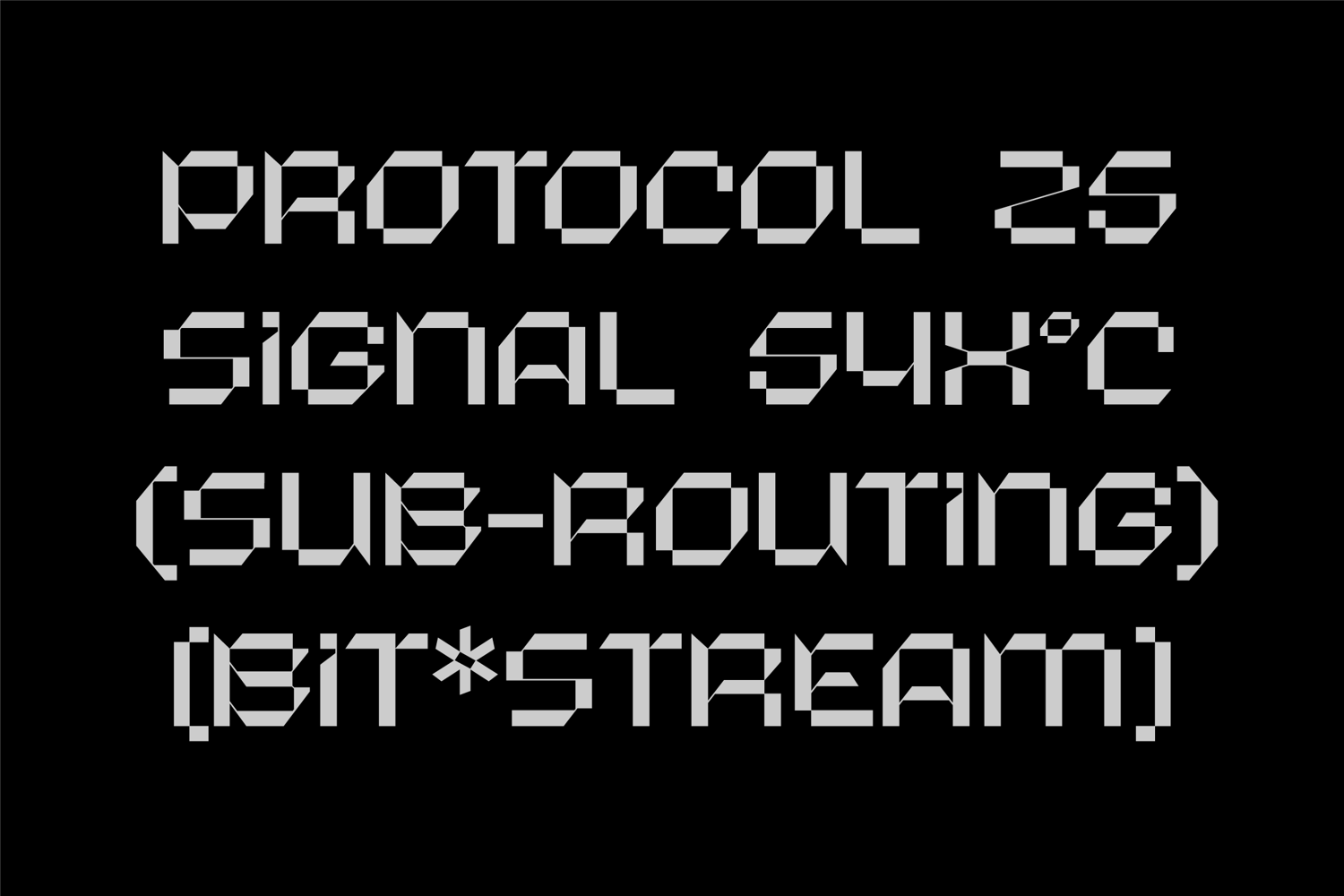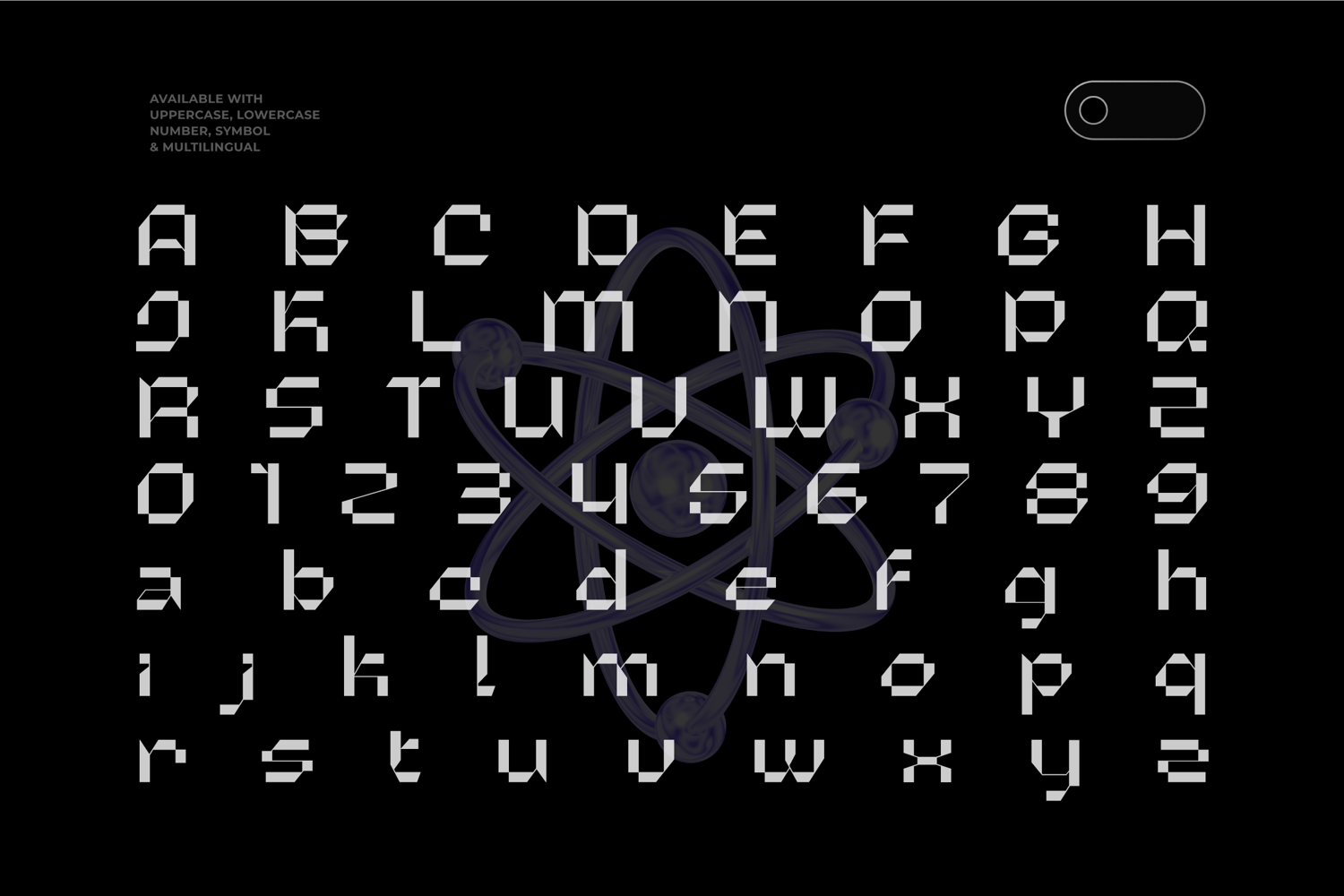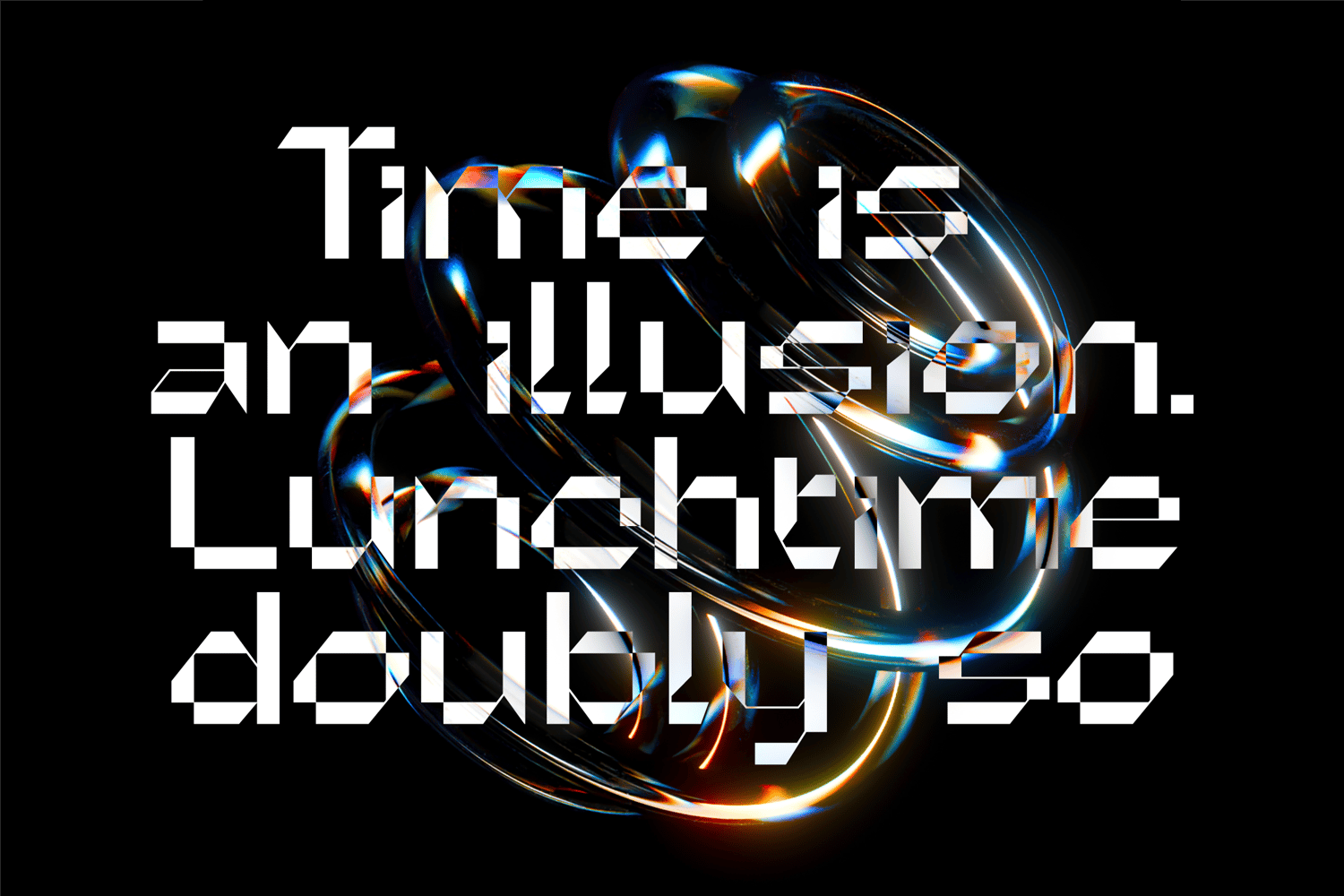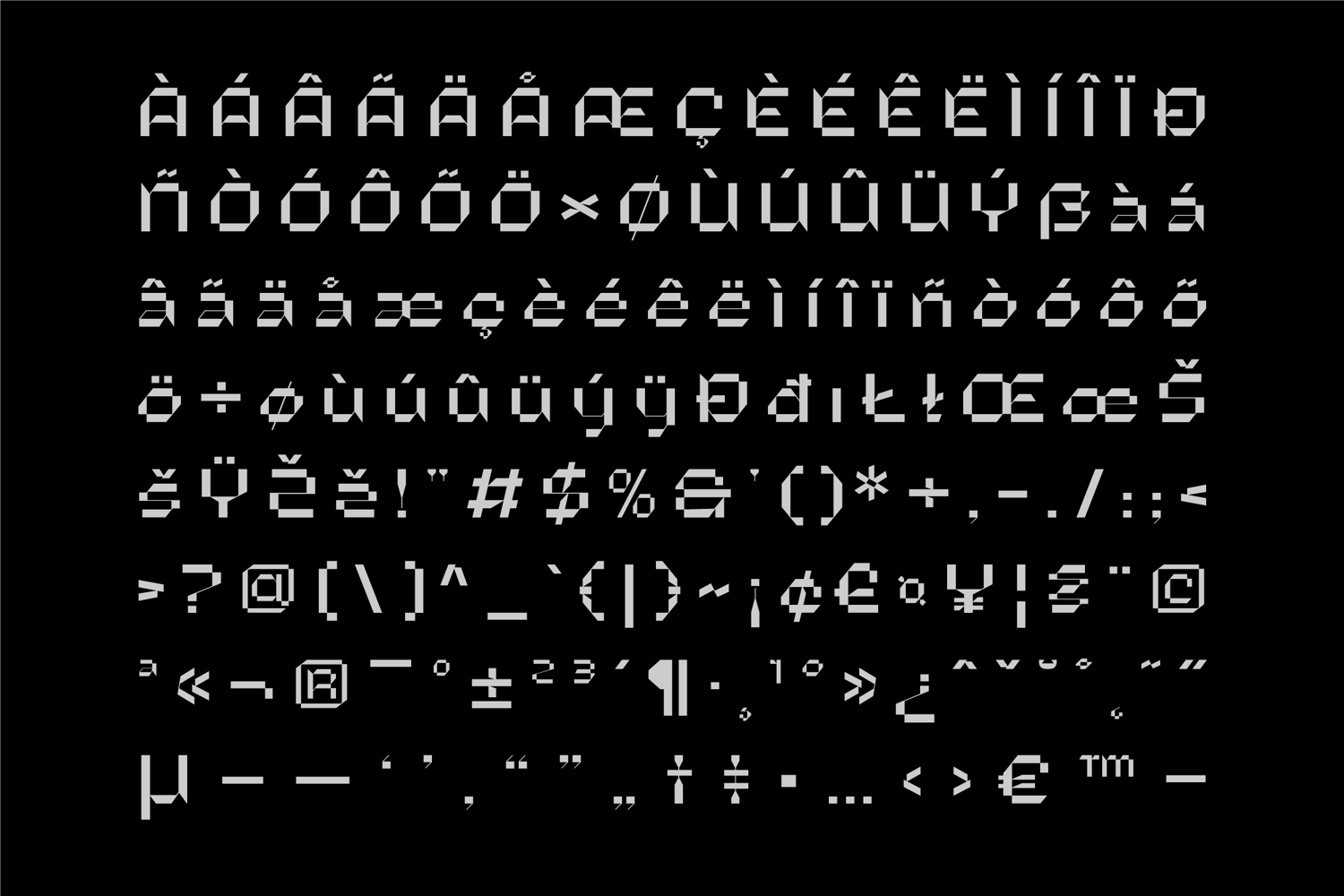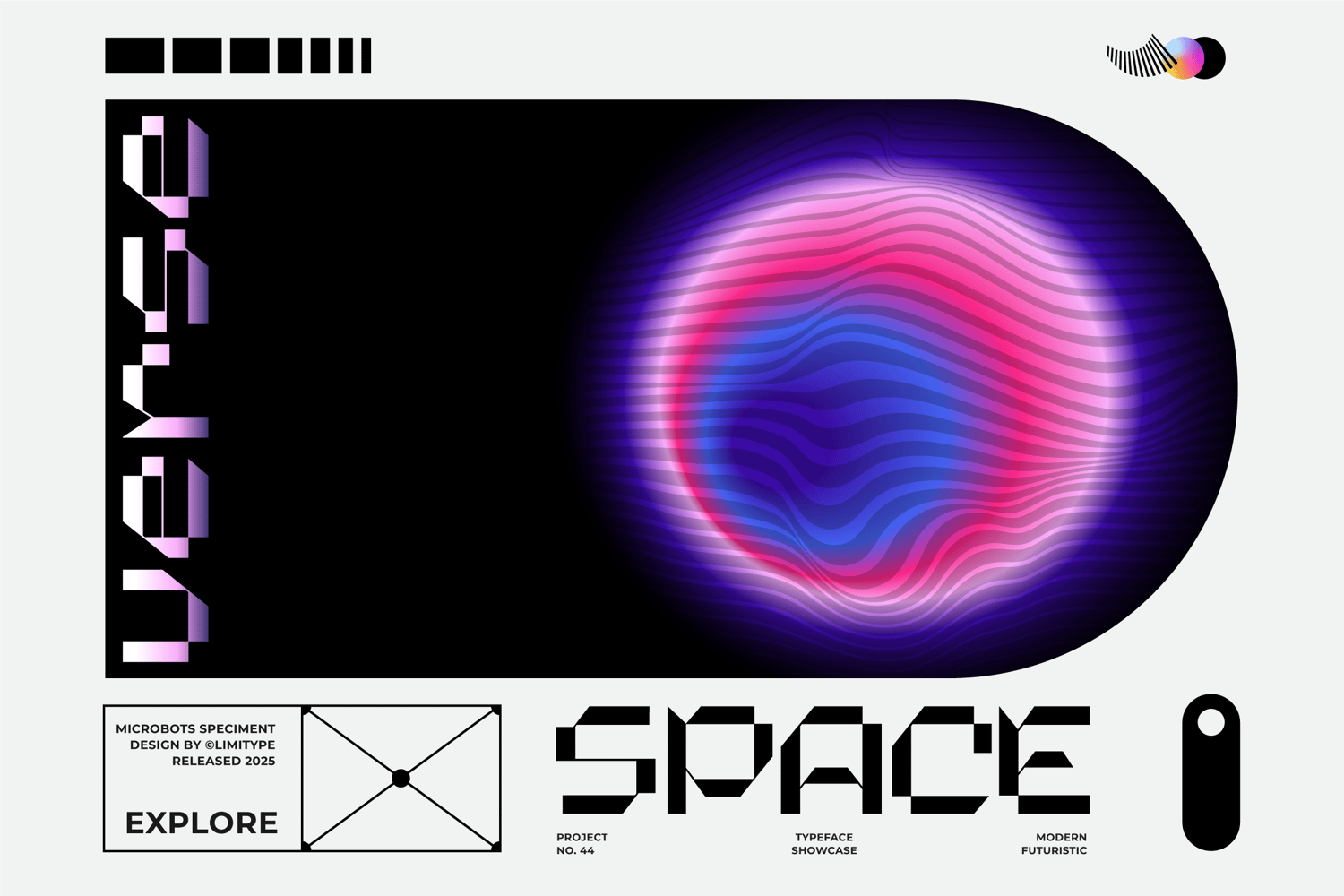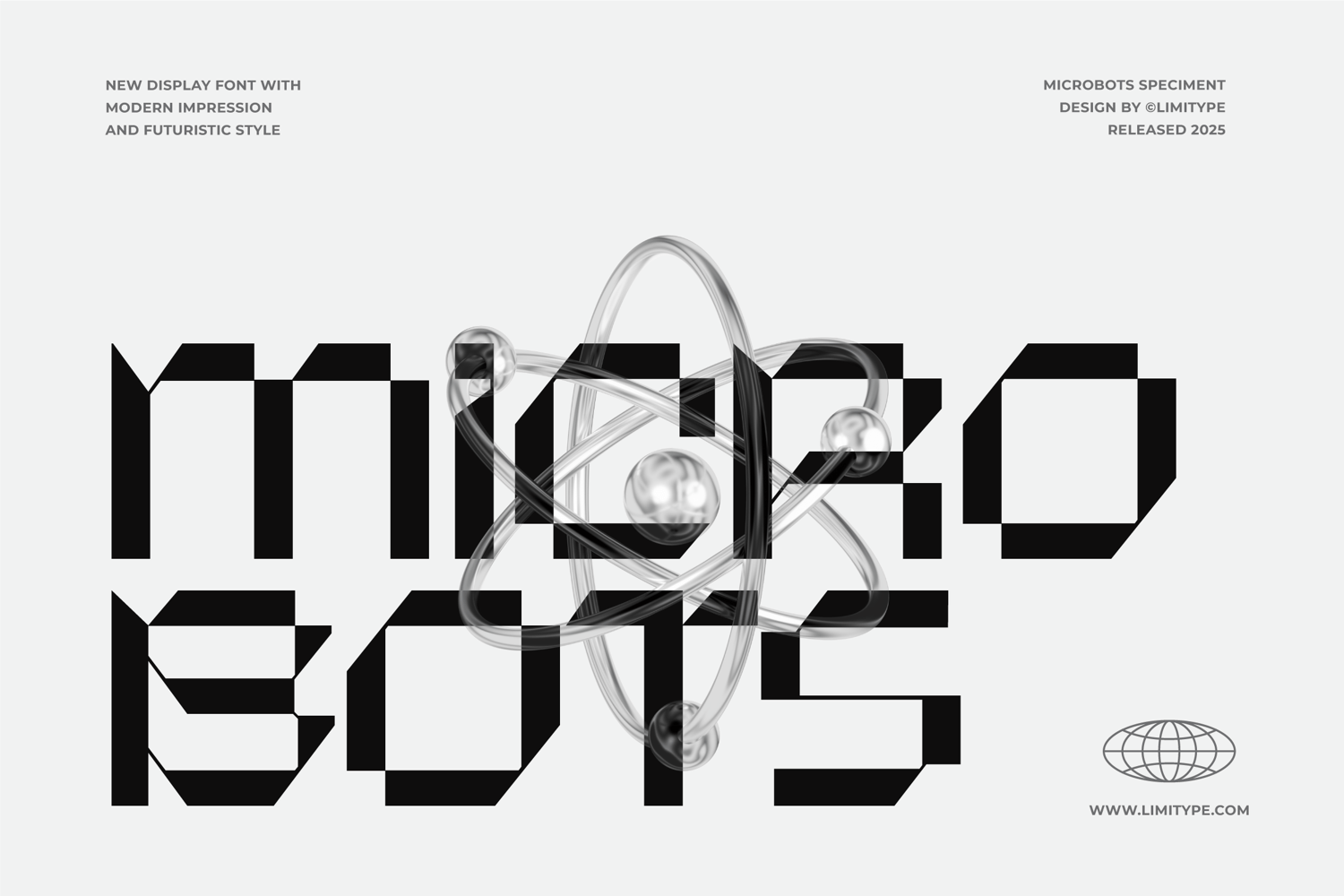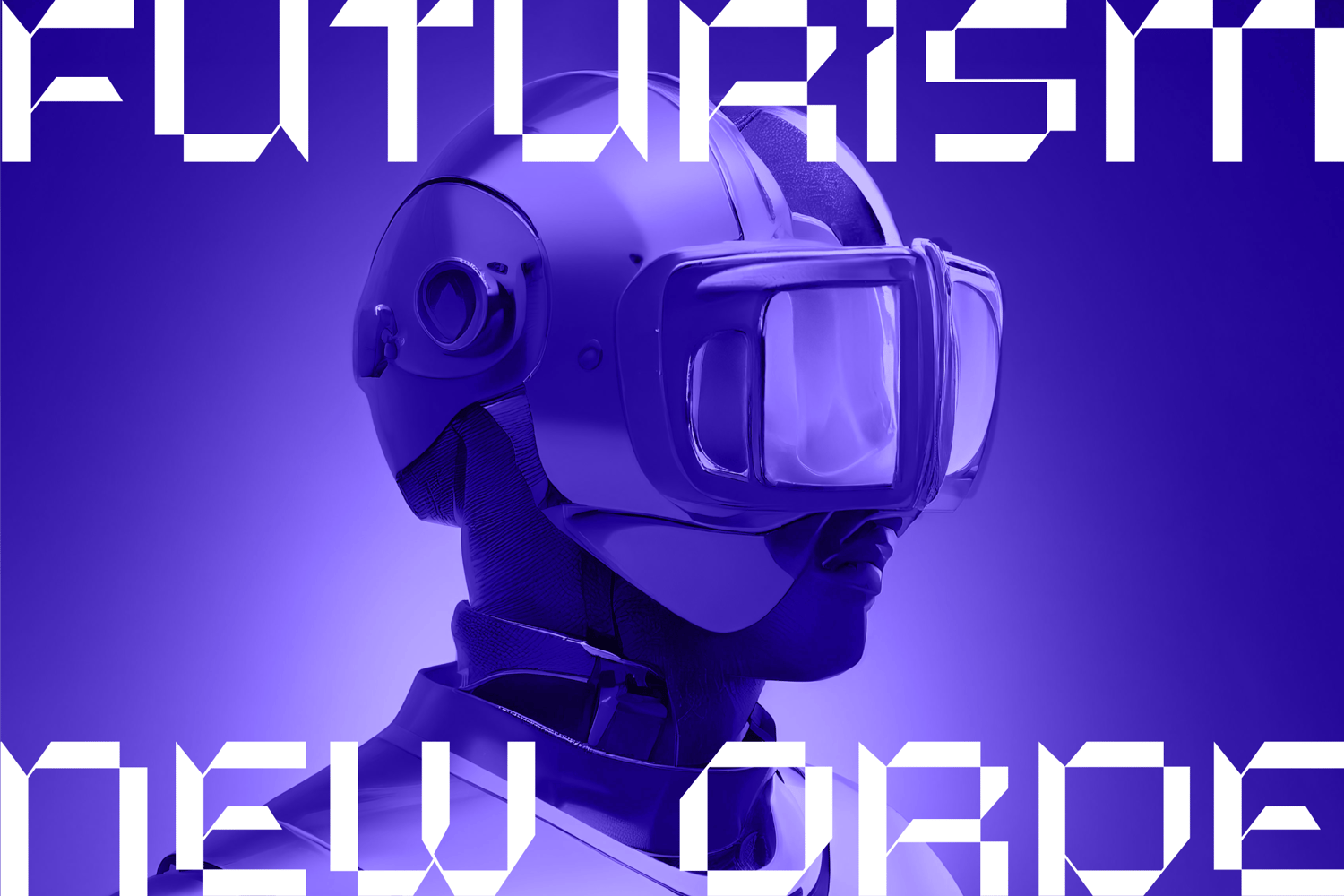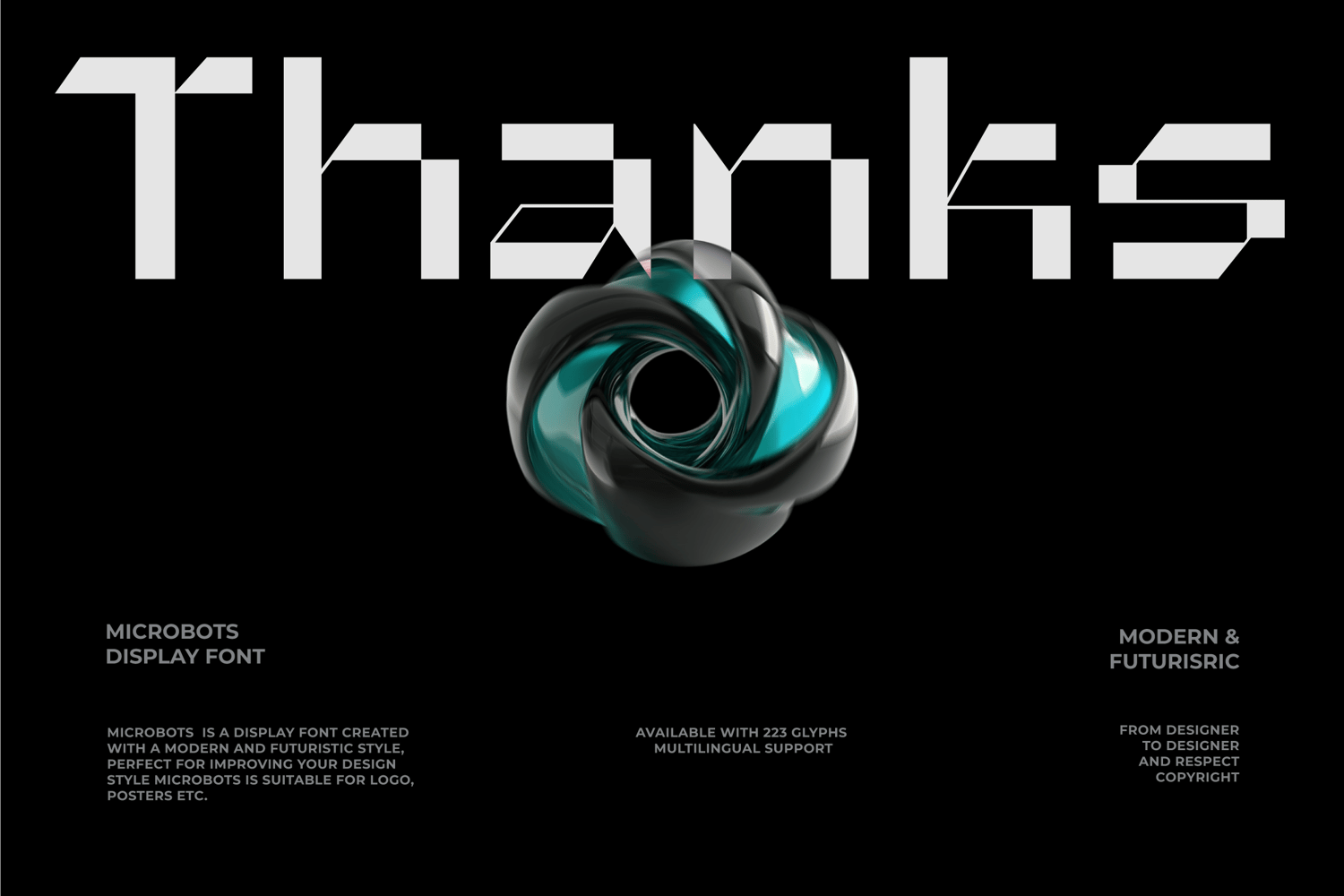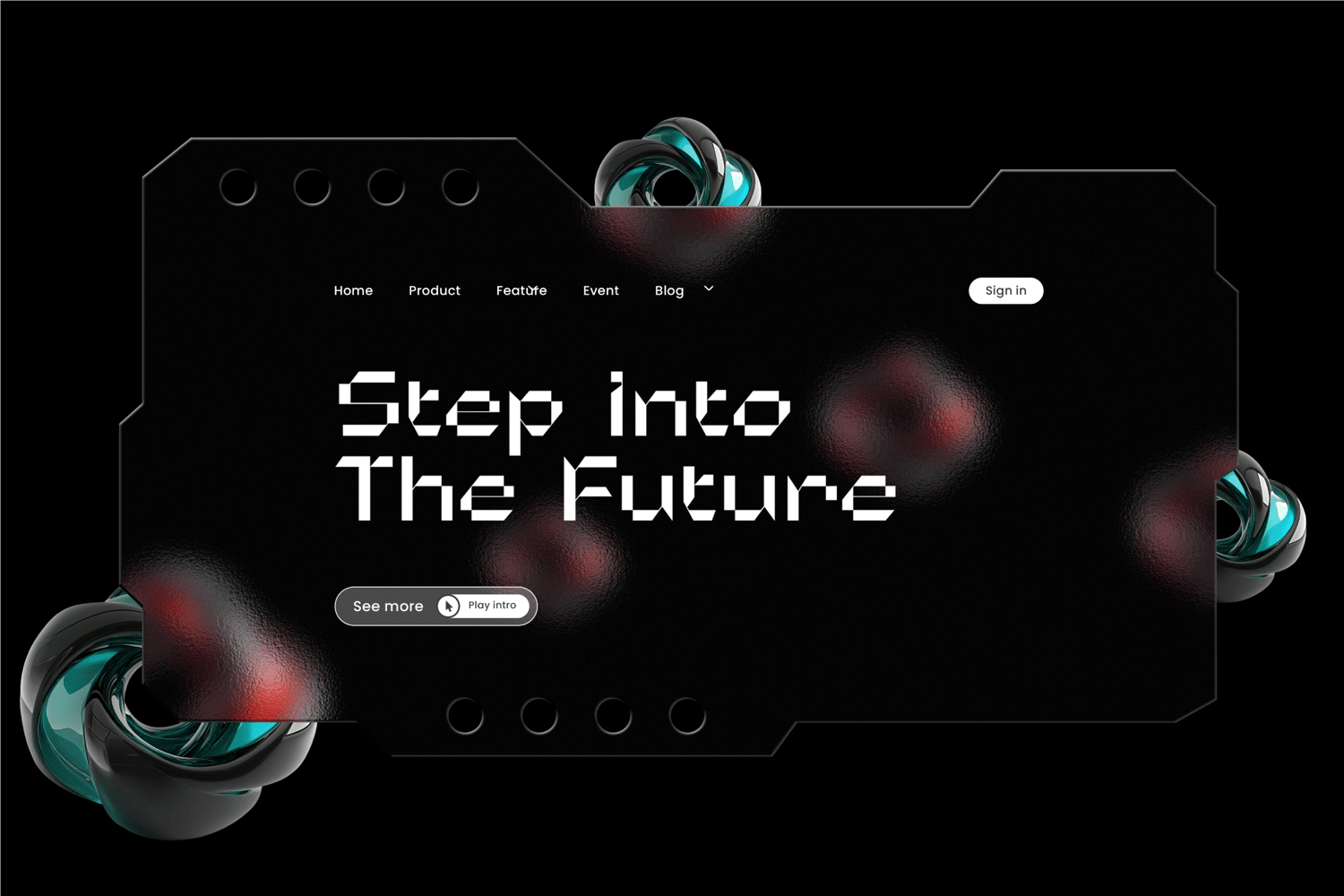
Microbots - Futuristic Font
Microbots is a futuristic pixel style font with sharp, angular edges that delivers a strong and unique visual identity. Perfect for titles, posters, logos, and various design projects that aim to appear bold and modern.